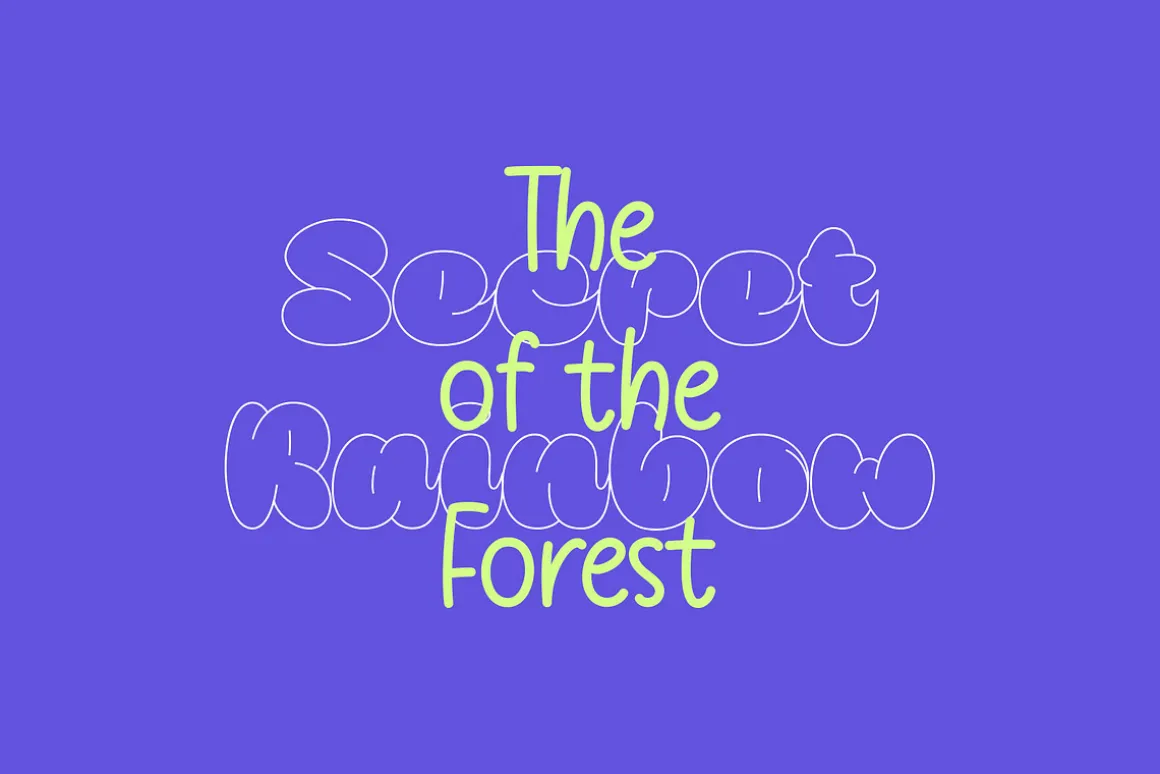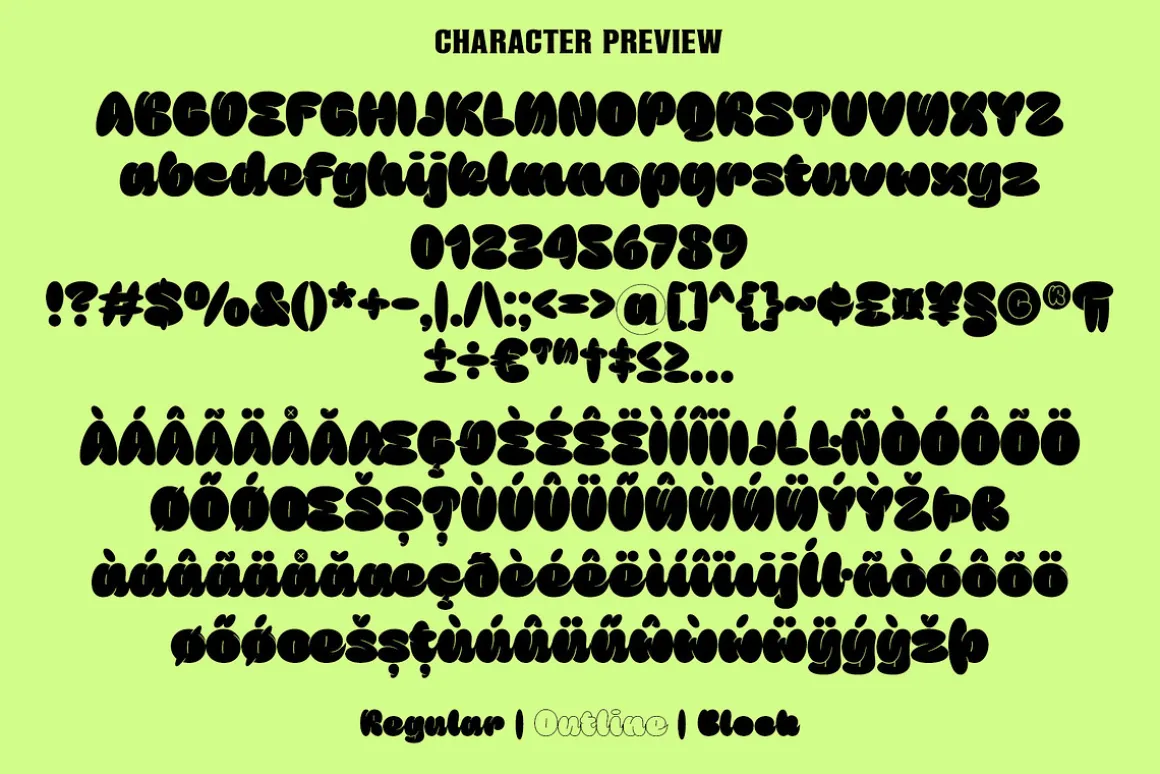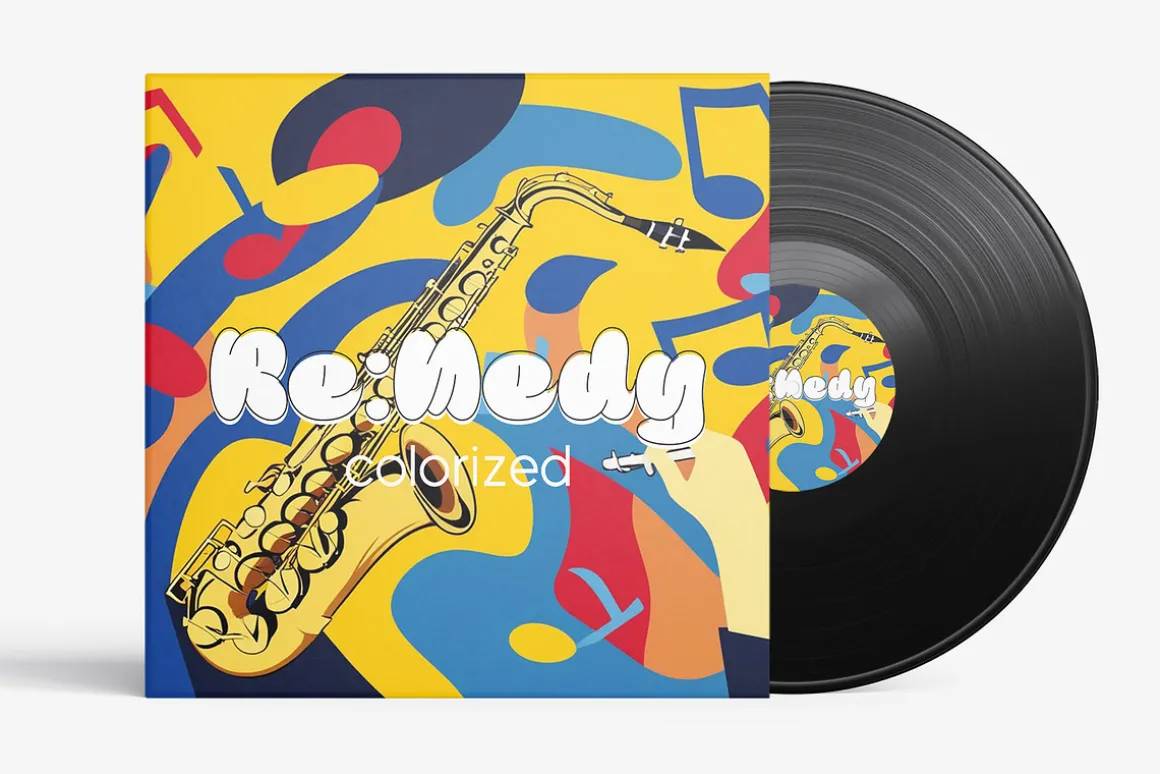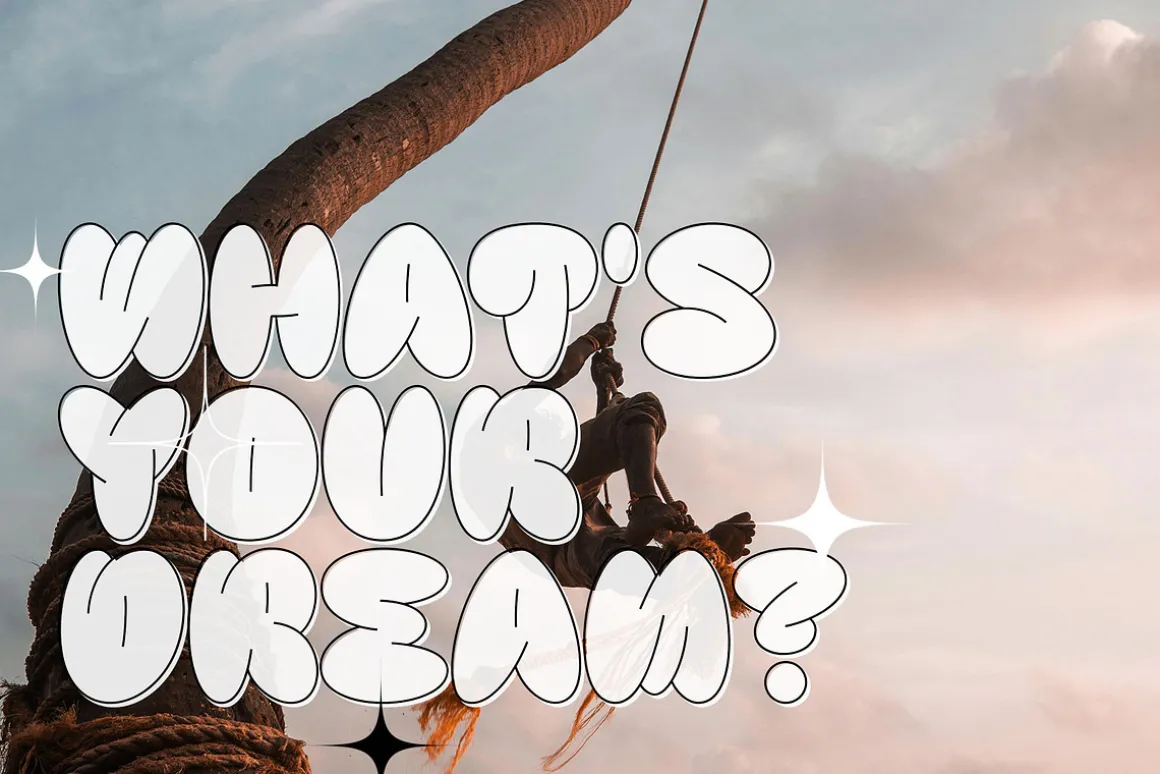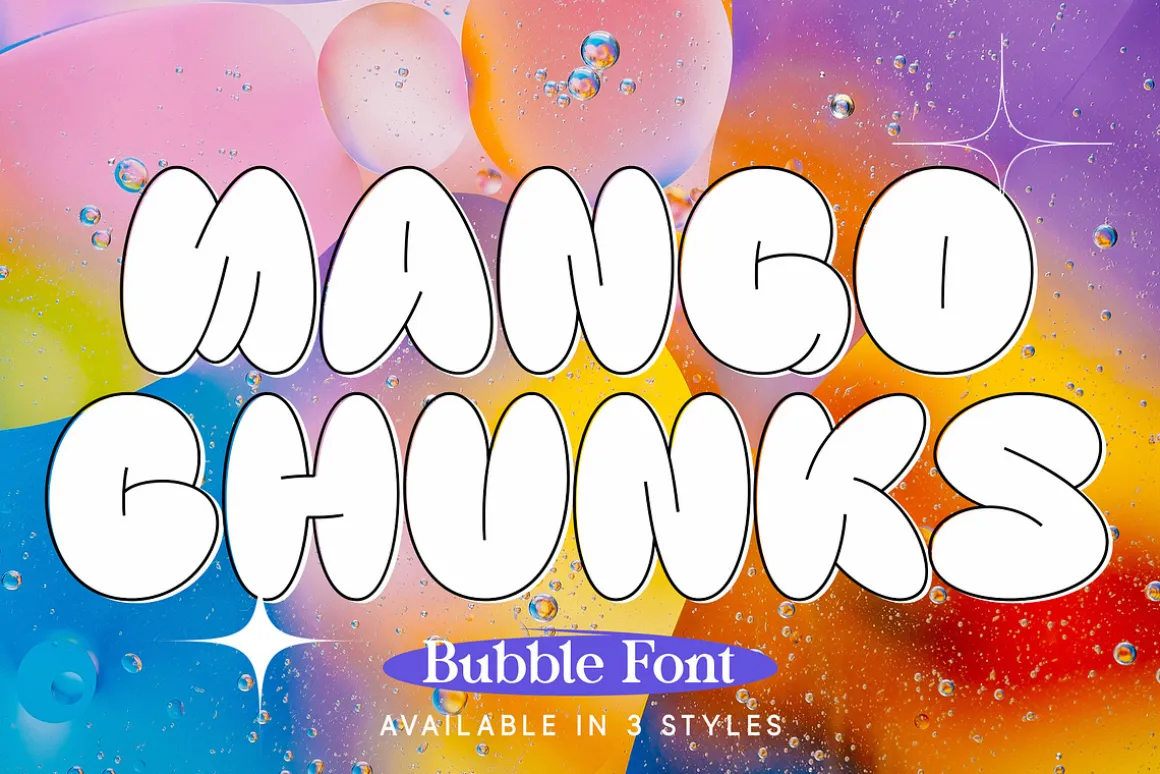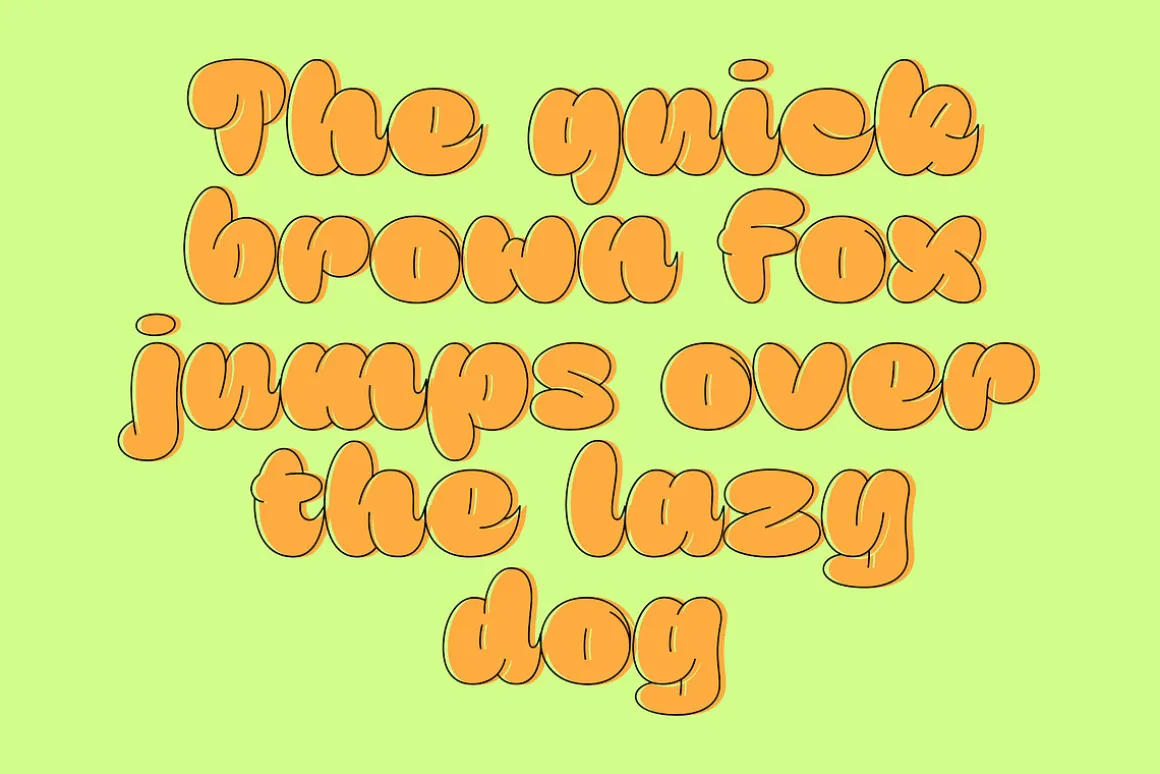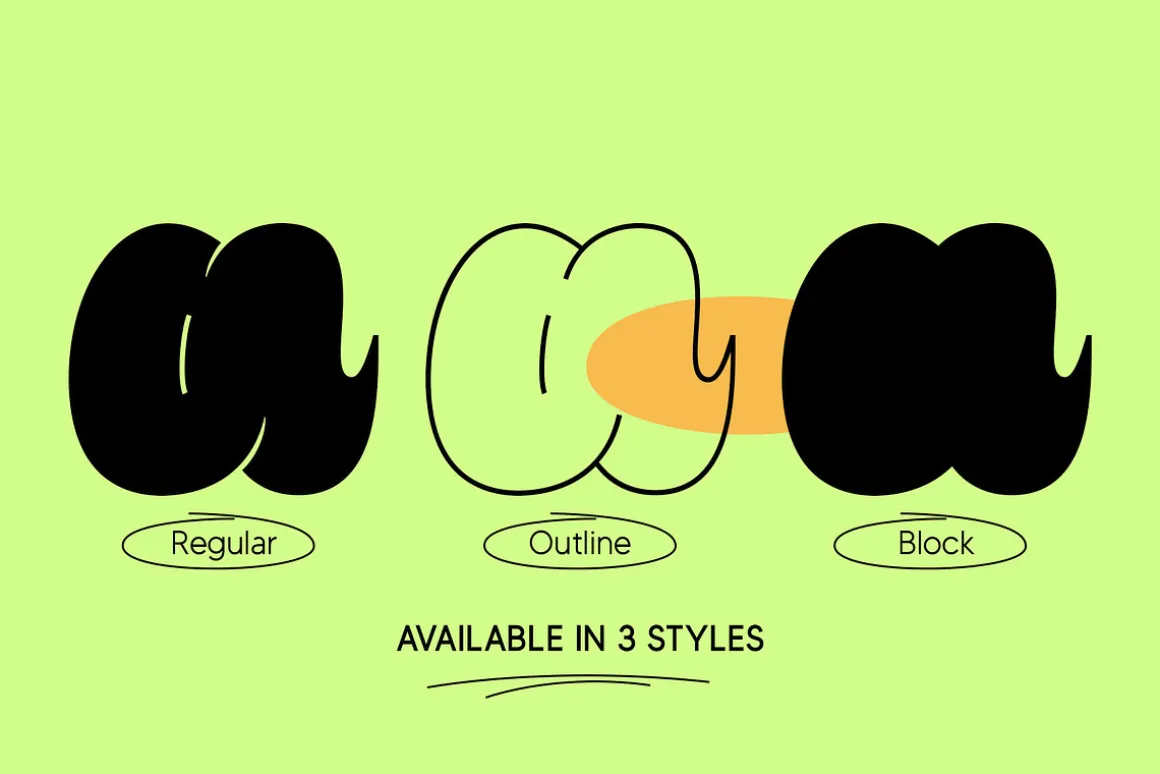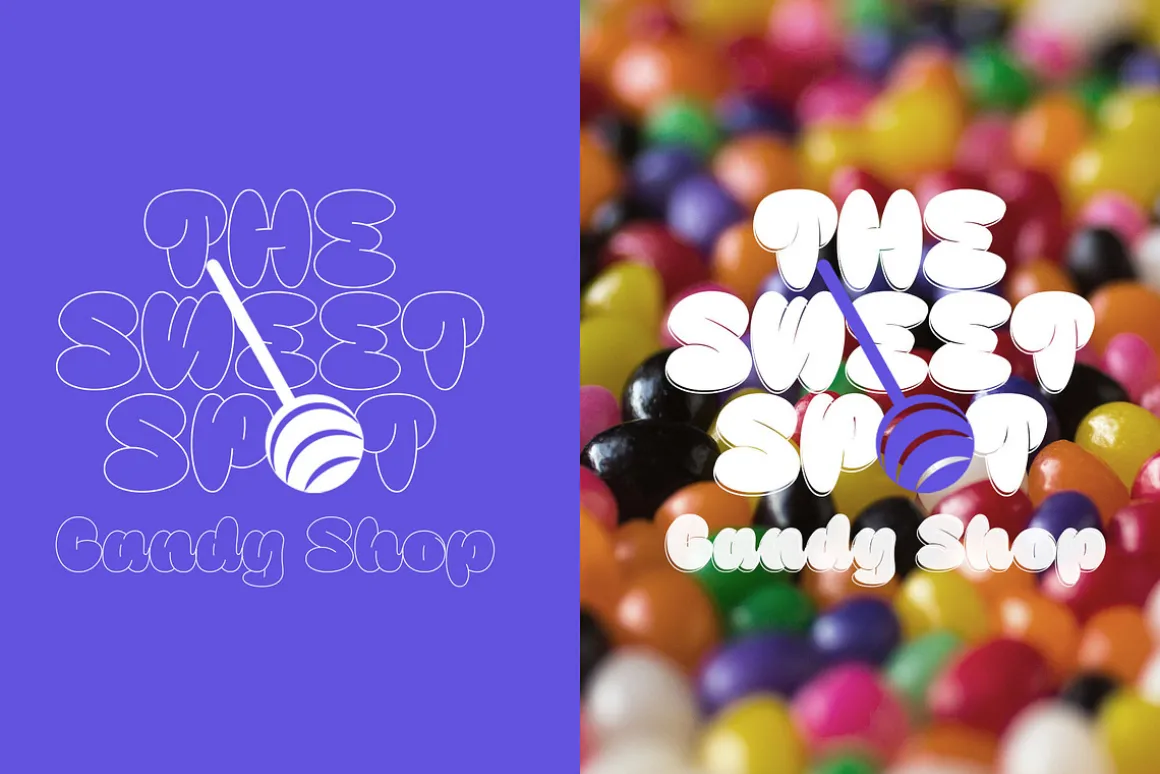
Mango Chunks is a cheerful and playful typeface with a bold and bubbly appearance.
It comes in three styles: Regular, Outline, and Block. The Regular style has bold and solid letters, while the Outline style shows the letter outlines, giving a light and spacious feel. The Block style is solid and strong, perfect for emphasis or headlines. Mix and match Mango Chunks to bring a cheerful and colorful atmosphere into your designs. Perfect for various design projects such as branding, logos, labels, packaging design, posters, headings, quotes, and much more.
- Regular, Outline and Block
- Stylistic Alternates
- Numerals and Punctuation
- Multilingual Support